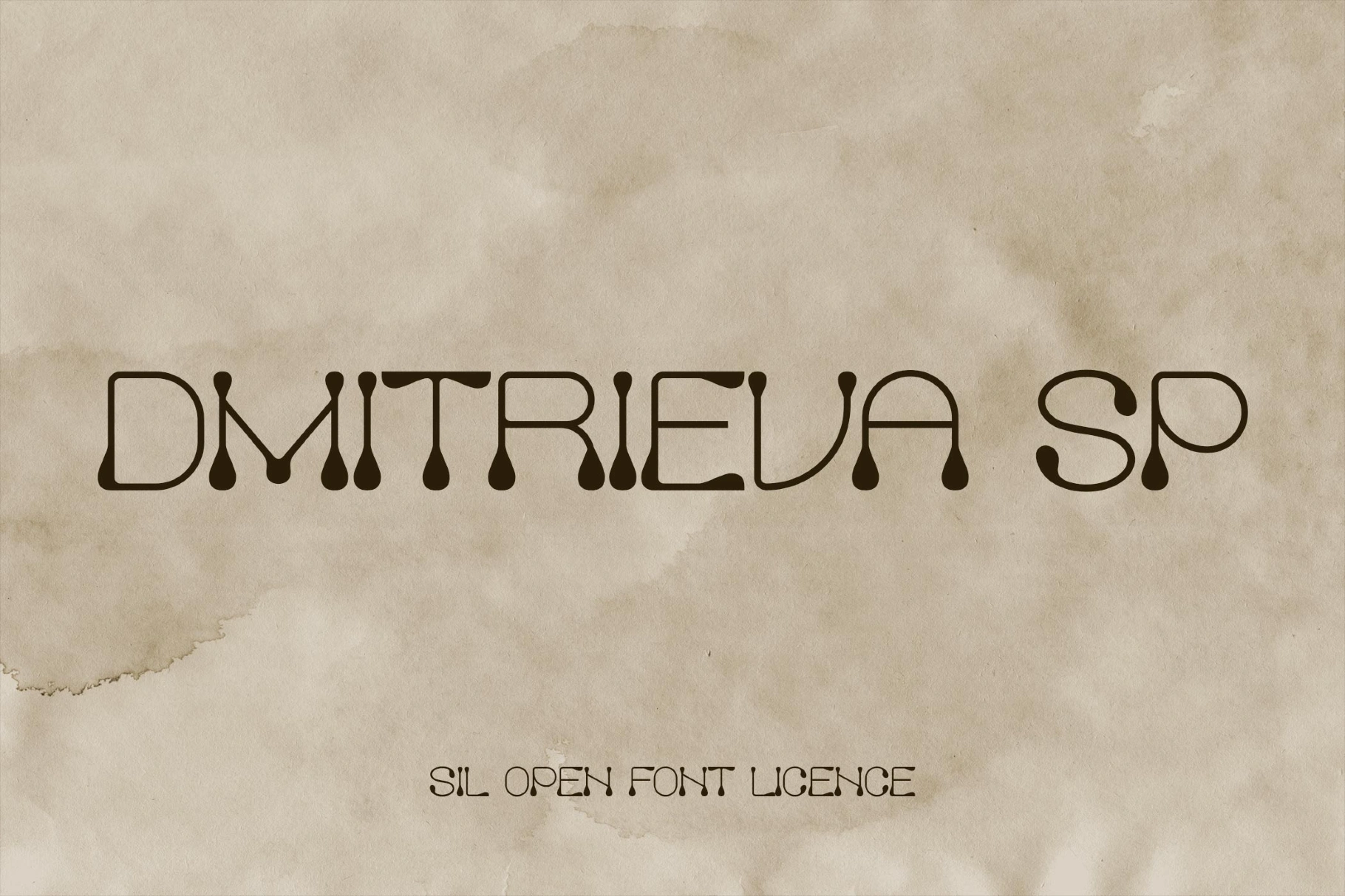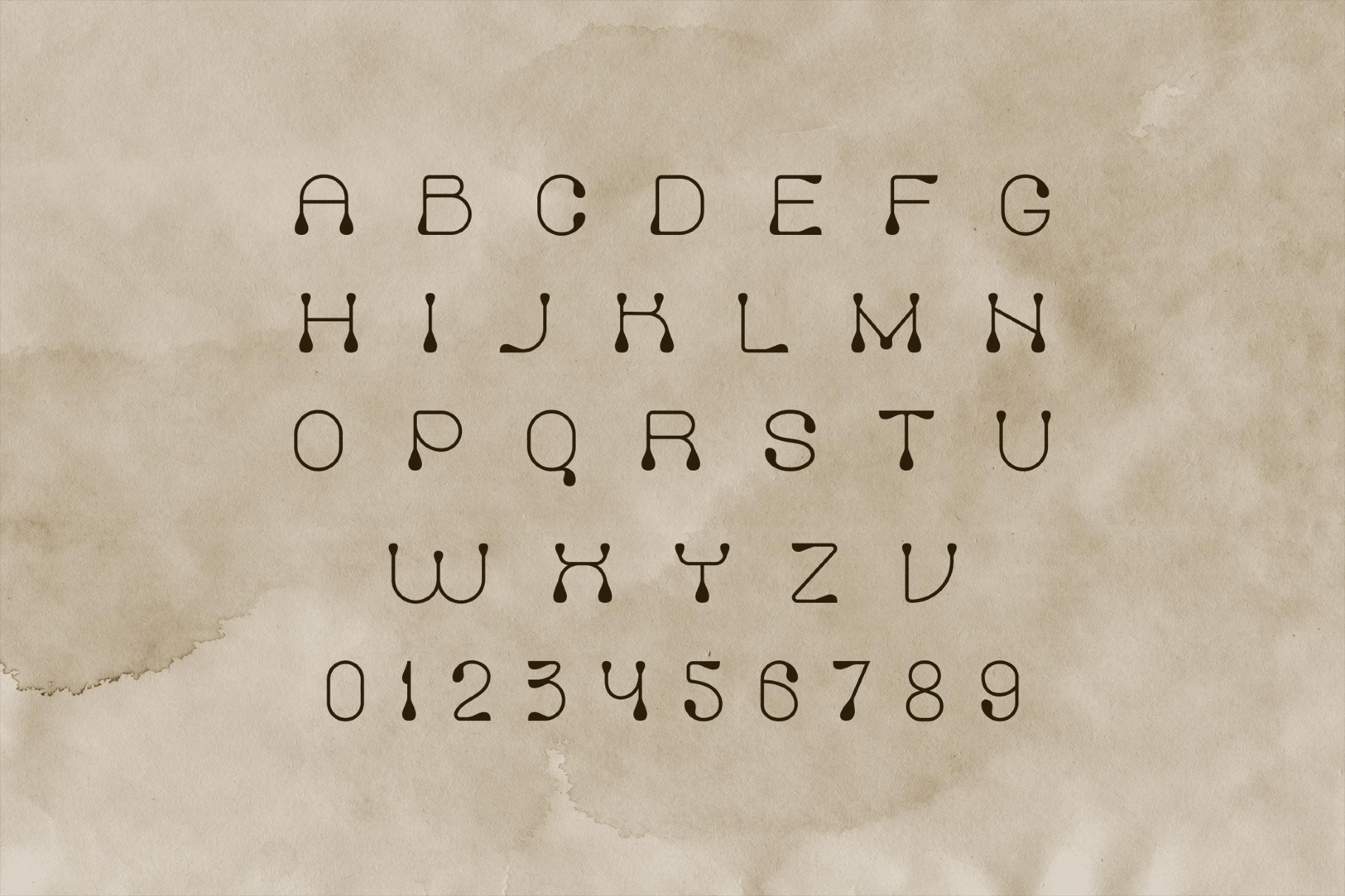
Dmitrieva SP Font
DmitrievaSP
Dmitrieva SP is a high-contrast display serif with razor hairlines, sculpted curves, and calligraphic flicks. It is reminiscent of late-19th-century Russian book typography and Silver Age posters. With characterful contrast, the font is well-suited to magazine covers, cultural event identities, luxury packaging fronts, editorial headlines, book-cover titling, exhibition graphics, and refined logo wordmarks.
- Only uppercase letters.
- Multilingual support across basic Latin and Cyrillic scripts.